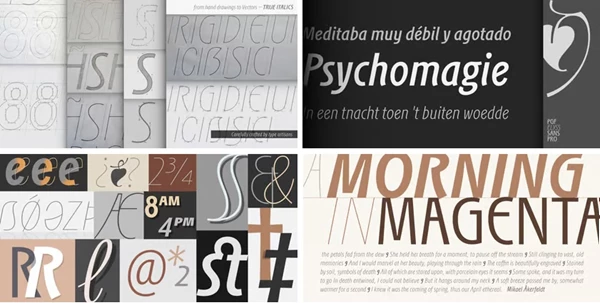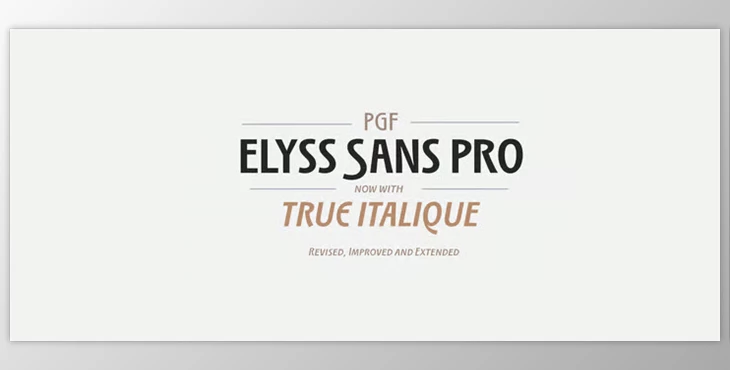
The PGF Elyss Sans Pro typeface is a striking modern interpretation of the PFG Elyss Roman, incorporating contemporary styling while preserving elements of the classic design. It is perfectly suited for a variety of applications, from labels, invites, and headlines to brochures and digital graphics, which is why it is appropriate for use in both branding and web design, as well as UI/UX design. Its comprehensive character support includes over 1,000 glyphs, which caters to more than 200 languages, providing ample coverage for a wide range of users and cultures.
- Rich glyph set: Over 1,000 glyphs accommodating more than 200 languages.
- Versatile numeral options: Including but not limited to lining and old style, small caps, and tabular numerals.
- Advanced typographic tools: Consists of standard and discretionary ligatures, as well as contextual alternates.
- Mathematical and currency symbols: Available in lining, small caps, tabular, and old-style formats.
- Localized language customization: Designed for Azeri, German, Dutch, Polish, Catalan, Romanian, Moldavian, and many other languages.
- Ideal for various design projects: Appropriate for labels, invitations, book titles, brochures, magazine design, logotypes, branding, and more.